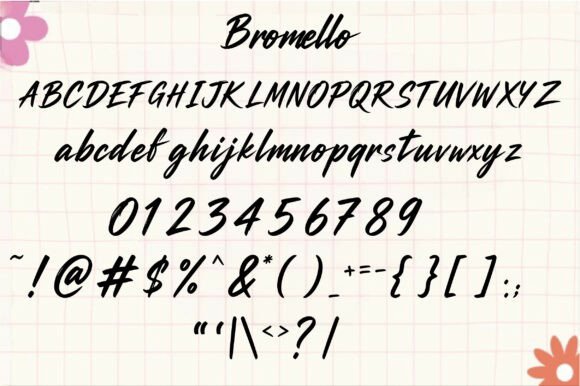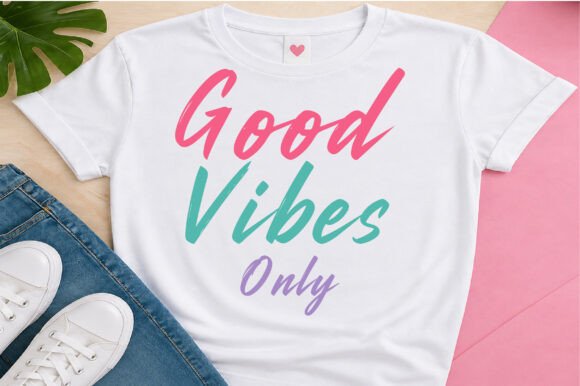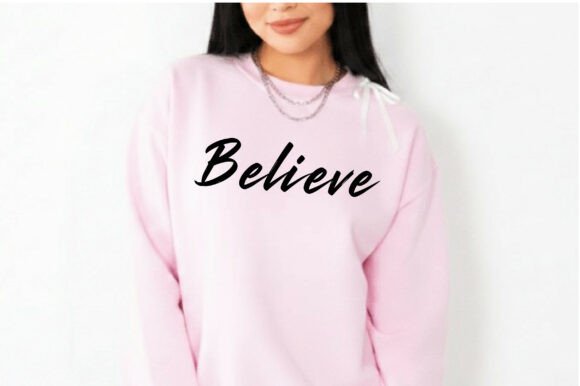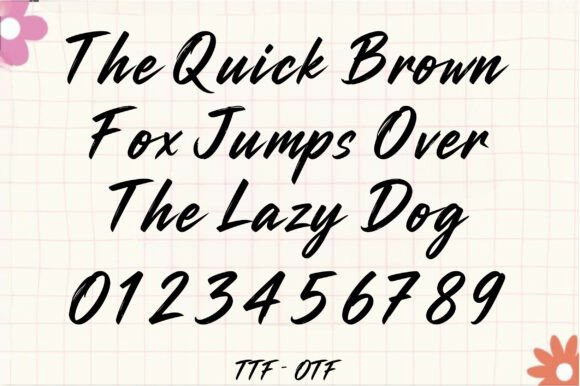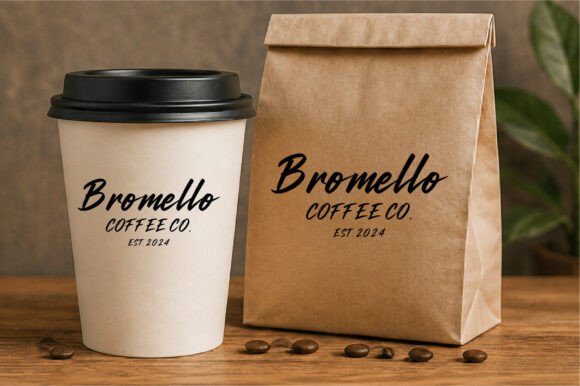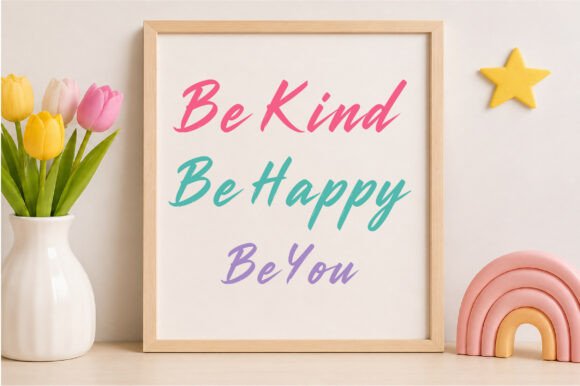
Bromello Font: Elevate Your Designs with Elegant Handwritten Style
In the world of typography, fonts play a crucial role in conveying the tone and personality of a design. For designers and crafters looking for a modern, yet elegant handwritten script font, Bromello is an excellent choice. This versatile font features smooth curves and a natural flowing style, making it perfect for a wide range of applications, from branding and logos to wedding invitations, social media graphics, packaging, t-shirts, posters, and handmade craft projects.
The Characteristics of Bromello Font
Bromello is a modern handwritten script font that boasts a unique blend of elegance and approachability. Its smooth curves and natural flowing style give it a distinctive look that sets it apart from other fonts. The font’s elegant handwritten look adds a stylish and professional touch to both digital and print designs, making it an excellent choice for designers and crafters who want to create high-quality visuals.
Uses of Bromello Font
Bromello’s versatility makes it suitable for a wide range of applications. Here are some of the ways you can use this beautiful font:
- Branding and Logos: Create a lasting impression with Bromello’s elegant and professional look. Use it to craft a unique logo that reflects your brand’s personality and values.
- Wedding Invitations: Add a touch of romance and sophistication to your wedding invitations with Bromello’s beautiful handwritten script.
- Social Media Graphics: Elevate your social media presence with eye-catching graphics featuring Bromello’s smooth curves and natural flowing style.
- Packaging: Make your products stand out with Bromello’s elegant and stylish look. Use it to create labels, packaging materials, and more.
- T-Shirts and Apparel: Create stunning apparel with Bromello’s unique and stylish design. Perfect for custom t-shirts, hoodies, and more.
- Posters and Flyers: Grab attention with Bromello’s bold and elegant look. Use it to create eye-catching posters and flyers for events, promotions, and more.
- Handmade Craft Projects: Add a personal touch to your handmade craft projects with Bromello’s beautiful handwritten script. Perfect for crafters who want to create unique and stylish designs.
Why Choose Bromello Font?
With so many fonts available, why choose Bromello? Here are just a few reasons why designers and crafters love this modern handwritten script font:
- Elegant and Professional: Bromello’s elegant handwritten look adds a stylish and professional touch to both digital and print designs.
- Versatile: Use Bromello for a wide range of applications, from branding and logos to wedding invitations, social media graphics, packaging, and more.
- Easy to Read: Bromello’s smooth curves and natural flowing style make it easy to read, even at small sizes.
- Unique: Bromello’s distinctive look sets it apart from other fonts, making it perfect for designers and crafters who want to create unique and stylish designs.
Tips for Using Bromello Font
Here are a few tips for getting the most out of Bromello:
- Pair it with Other Fonts: Combine Bromello with other fonts to create a unique and stylish design. Try pairing it with a bold sans-serif font for a striking contrast.
- Experiment with Colors: Bromello looks great in a variety of colors. Experiment with different colors and combinations to find the perfect look for your design.
- Use it for Headings and Titles: Bromello’s elegant handwritten look makes it perfect for headings and titles. Use it to add a touch of style and sophistication to your designs.
In conclusion, Bromello is a versatile and elegant modern handwritten script font that’s perfect for designers and crafters looking to add a touch of style and sophistication to their designs. With its smooth curves, natural flowing style, and elegant look, Bromello is sure to become a favorite font for a wide range of applications.